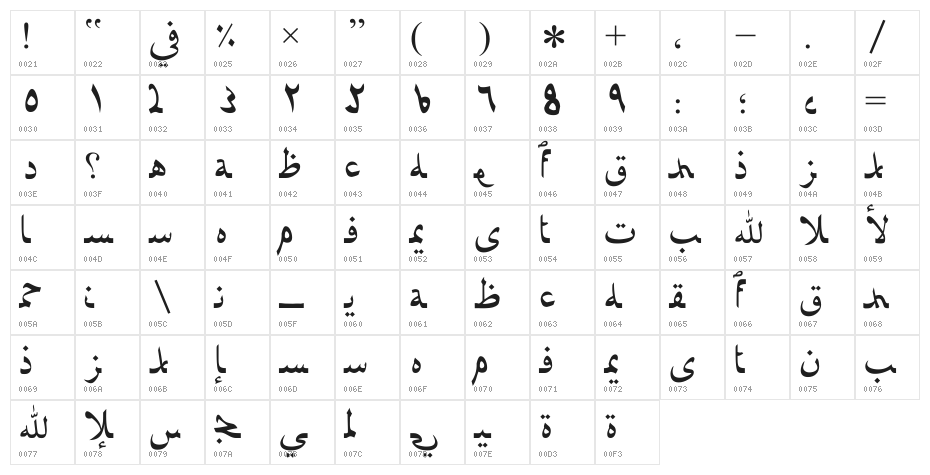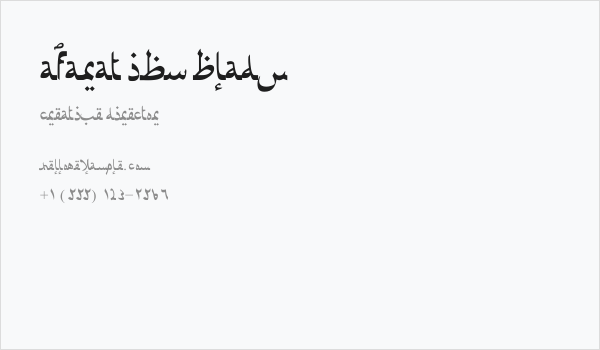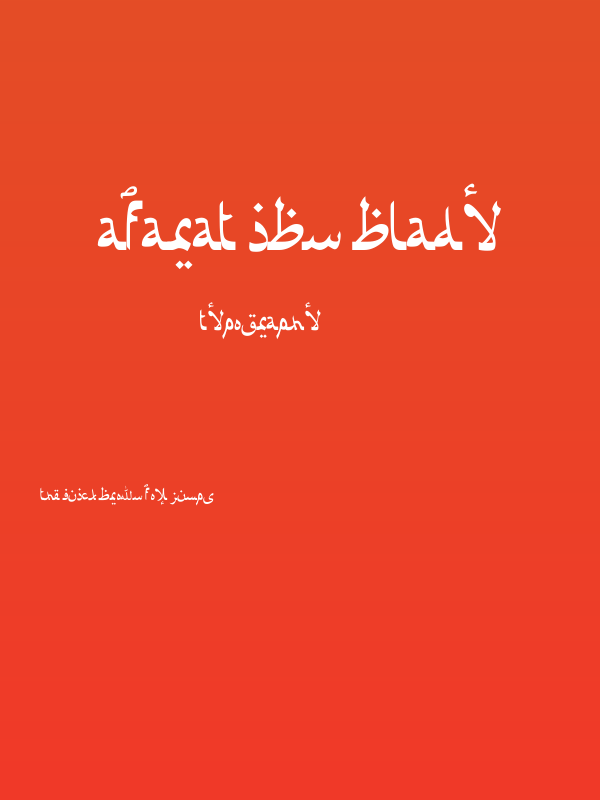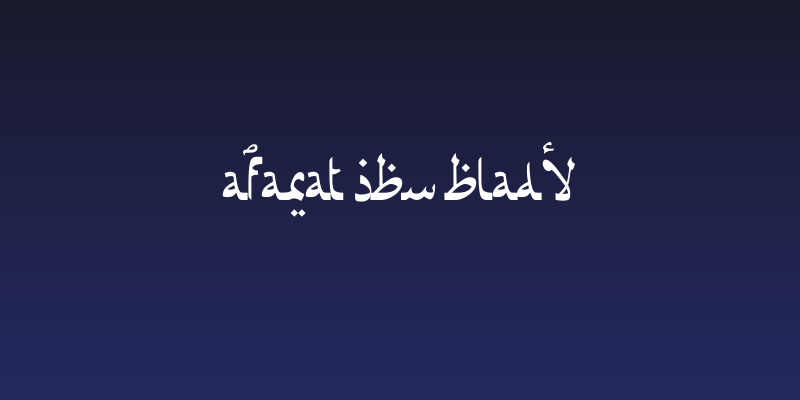
Afarat ibn Blady Font
Afarat ibn Blady Description
This font features a bold and expressive style with a strong presence. The characters are crafted with a high contrast between thick and thin strokes, giving it a dynamic and energetic appearance. The font includes a full set of Arabic characters, numerals, and a variety of punctuation marks. Its design is both traditional and modern, making it versatile for various applications. The strokes are smooth and fluid, with a slight slant that adds to its elegance. This font is suitable for projects that require a touch of sophistication and cultural depth.
| Proposed Projects | Ideal for branding, headlines, posters, and cultural projects that require an Arabic script. |